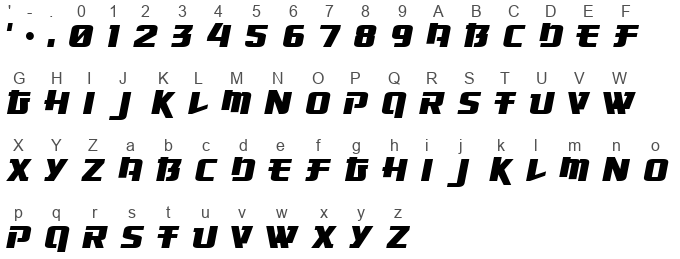
The Osaka-Sans Serif font, crafted by the talented Vic Fieger, is a distinctive typeface that melds modernity with simplicity to offer a versatile and visually appealing font for various applications. Its design is a tribute to the clear, straightforward styles of sans-serif typography, but with unique touches that set it apart, making it particularly notable for both digital and print mediums.
Osaka-Sans Serif is characterized by its clean lines and geometric shapes, with a cohesive balance between its letterforms that provides a smooth reading experience. The font’s characters display a uniform stroke width, contributing to its modern and minimalist aesthetic. This consistency in design ensures that the font maintains its legibility and clarity, even when used in smaller sizes, which is essential for body text in both web and print design.
The versatility of Osaka-Sans Serif lies in its ability to adapt to various contexts, from professional business collateral to more informal, creative projects. It can be equally effective on a sleek website interface, an engaging mobile app, or printed materials like brochures and flyers. Moreover, its understated elegance allows it to pair well with other typefaces, making it a valuable asset for designers seeking to create harmonious typography hierarchies.
Vic Fieger's creation offers a fresh perspective on sans-serif typography by blending approachability with a touch of sophistication. The Osaka-Sans Serif font not only stands out for its aesthetic appeal but also for its functionality, making it a go-to choice for designers aiming to communicate messages clearly and attractively.
Osaka-Sans Serif